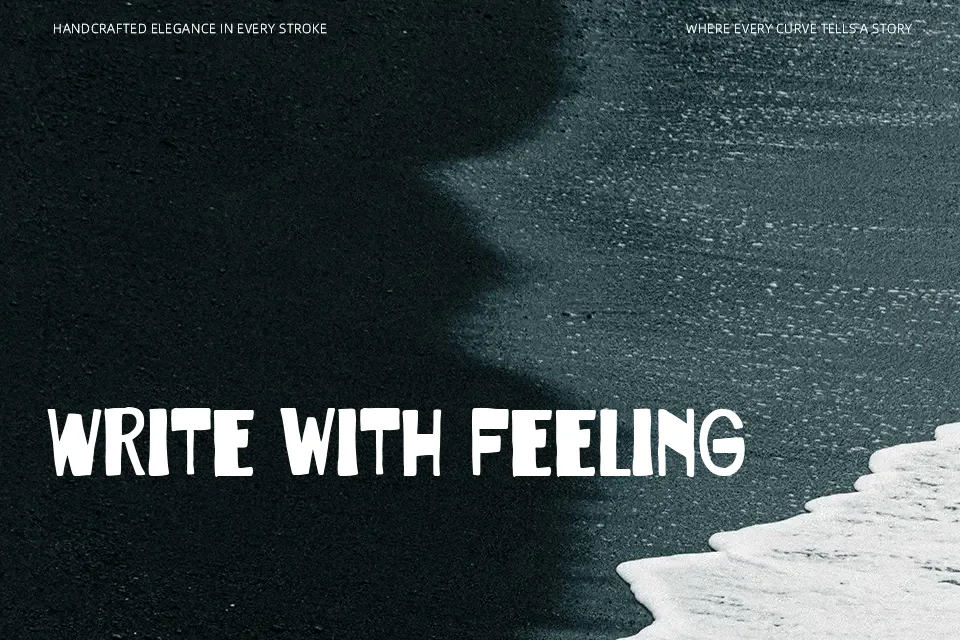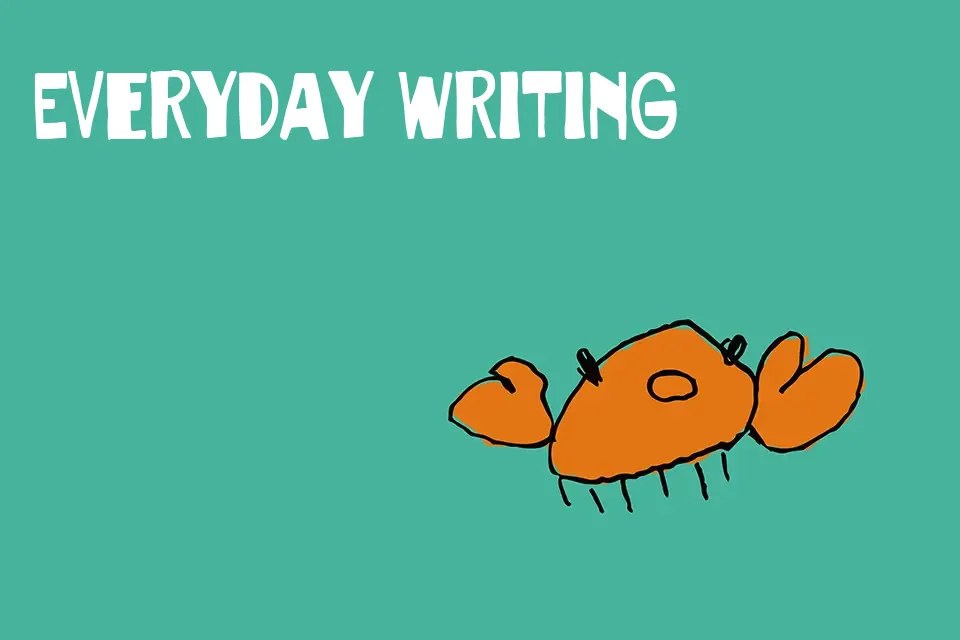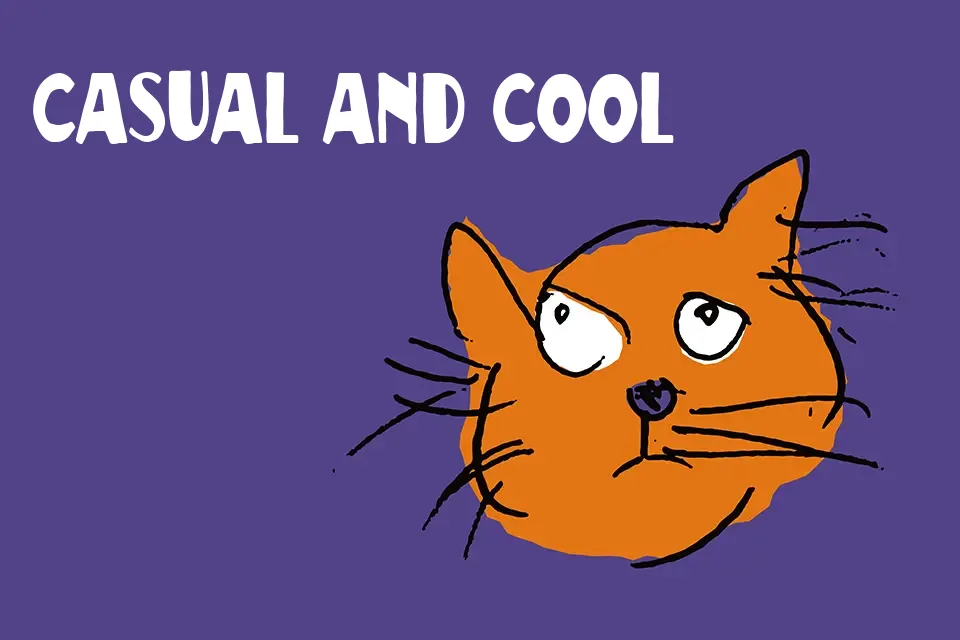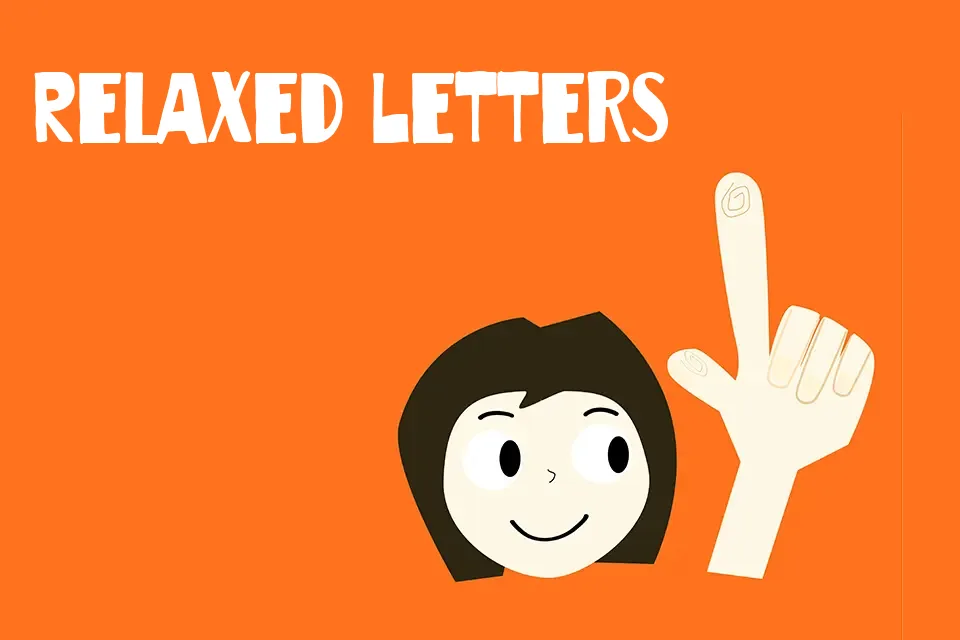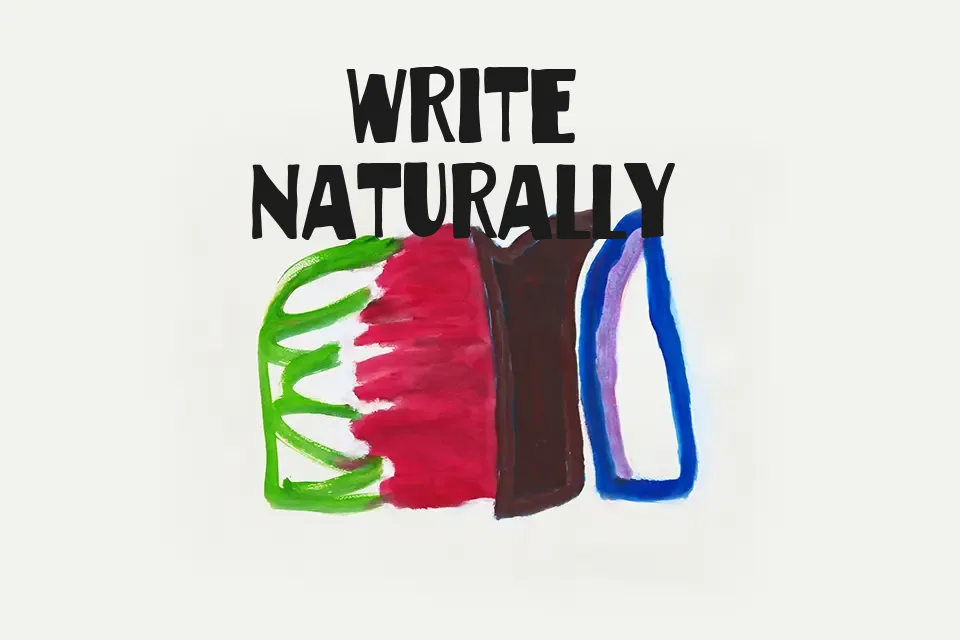
Rocket Doodle Font
Rocket Doodle Font immediately stands out with its energetic, hand-drawn aesthetic that perfectly captures a carefree cartoon style. The letterforms display a dynamic bounce with irregular stroke thicknesses and softly rounded terminals, giving the typeface a friendly and approachable appearance. Its bouncy baseline creates a fun visual rhythm that naturally draws the eye. The spacing helps maintain clarity in larger headlines, ensuring the playful details do not overwhelm the text. This design is highly effective for vibrant toy packaging, animated video titles, and cheerful event posters. However, the irregular forms reduce continuous reading comfort, making it less suitable for lengthy paragraphs or complex editorial layouts.
children’s toy packaging
comic book headlines
animated video titles
playful event posters
Perfect for gaming, headline, and kids, with a creative and cartoon style.